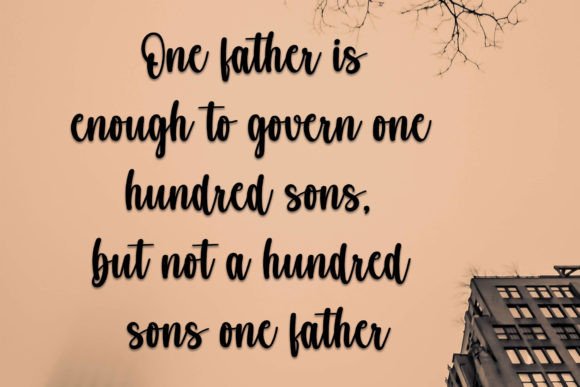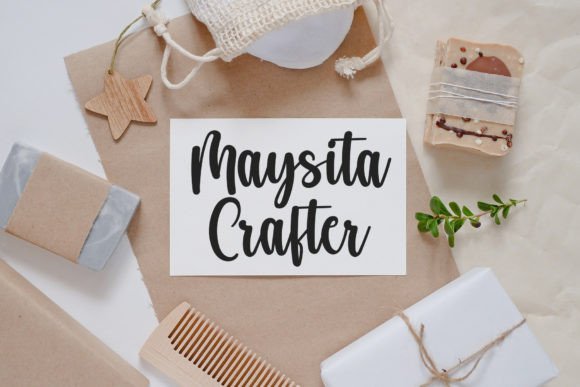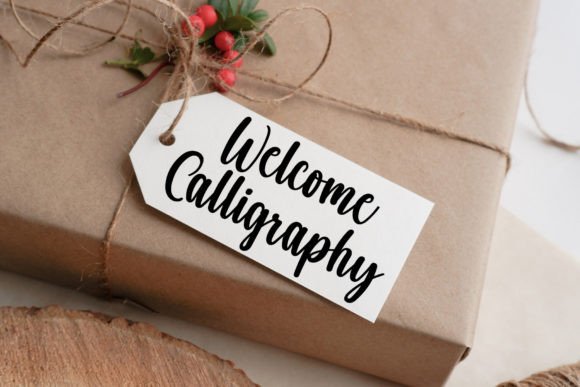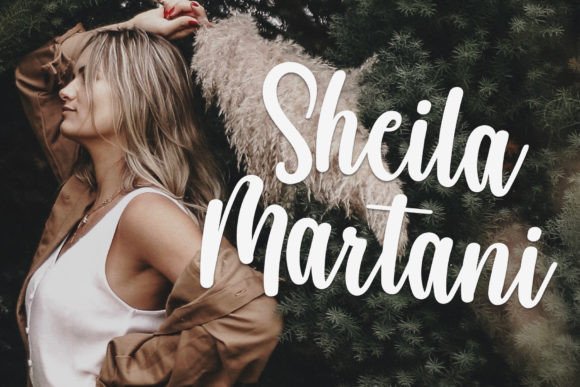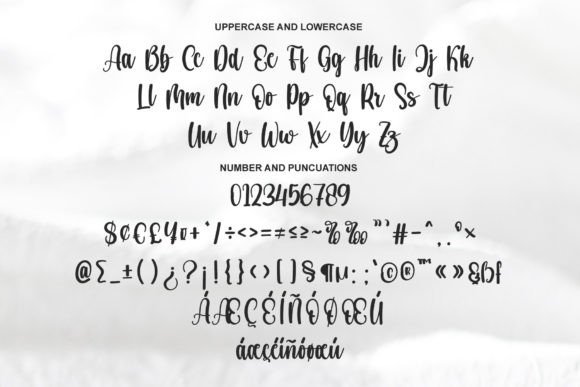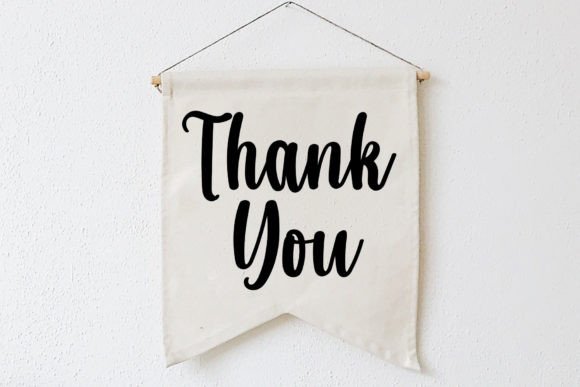
Unleashing the Charm of Handwritten Typography
As designers, we’ve all been there – stuck in a creative rut, searching for that perfect font to bring a project to life. Perhaps it’s a wedding invitation, a heartfelt thank you note, or a stunning logo, and you’re struggling to find the right words to convey your message. It’s in these moments that we yearn for a font that exudes elegance and charm, transporting our designs to a world of sophistication and refinement.
Enter the Bastem Font, a masterpiece of handwritten typography that effortlessly captures the essence of handwritten notes and signatures. This versatile font is perfect for a wide range of designs, from wedding invitations to business cards, and everything in between. With the Bastem Font, designers can add a touch of warmth and personality to their work, making it truly stand out in a crowded marketplace.
Bastem Font Key Features
- Font Family: Bastem Font is a unique, high-quality font designed for various applications.
- Character Set: Includes a wide range of characters, including Latin, Cyrillic, and Greek alphabets, as well as punctuation and symbols.
- Font Size and Resolution: Available in various font sizes, from 8 to 72 points, and supports resolutions up to 300 DPI.
- Unique Characteristics: Bastem Font features a modern, elegant design with unique letterforms and subtle flourishes, making it perfect for creative projects and branding.
Bastem Font Review
Overall, I think Bastem Font is a solid choice for a variety of design projects. ✨ One of its standout features is its unique blend of modern and classic elements, making it suitable for everything from business cards to magazine headlines.
Another area where Bastem Font excels is its versatility. ✨ It comes in multiple weights and styles, allowing designers to easily switch between bold and italic variations. This feature is particularly useful for projects where consistency is key.
While Bastem Font has its strengths, there are a few areas where it falls short. ⚠️ One of the main limitations is its relatively limited language support. This may be a concern for designers working on international projects.
- ⚠️ Limited language support
- ⚠️ May not be suitable for projects requiring extreme font sizes or resolutions
Despite these limitations, I think Bastem Font is a great choice for designers looking for a reliable, high-quality font. ✨ Its unique blend of modern and classic elements, combined with its versatility, make it a solid addition to any design project.
Tips for Getting the Most Out of Bastem Font
Use Bastem Font to add a touch of elegance and sophistication to your designs.
Combine Bastem Font with other fonts to create a unique and eye-catching look.
Bastem Font is perfect for:
Editorial and publishing designs
Alternatives to Bastem Font for Designers
Montserrat is a sans-serif font designed for urban environments. It’s a popular choice for digital and print design due to its clean and modern aesthetic. Montserrat is ideal for use in headings and titles where a bold and sophisticated look is desired. Compared to Bastem Font, Montserrat has a more geometric and angular feel, making it suitable for modern and tech-related designs.
Lato is a sans-serif font that’s highly legible and versatile. It’s a great choice for body text and is often used in combination with other fonts. Lato has a friendly and approachable feel, making it suitable for use in websites, magazines, and other publications. Compared to Bastem Font, Lato has a more rounded and gentle feel, making it a good choice for designs that require a softer aesthetic.
Open Sans is a modern sans-serif font that’s highly legible and readable. It’s a popular choice for digital design due to its clean and minimalist aesthetic. Open Sans is ideal for use in body text and is often used in combination with other fonts. Compared to Bastem Font, Open Sans has a more neutral and unobtrusive feel, making it a good choice for designs that require a clean and straightforward aesthetic.